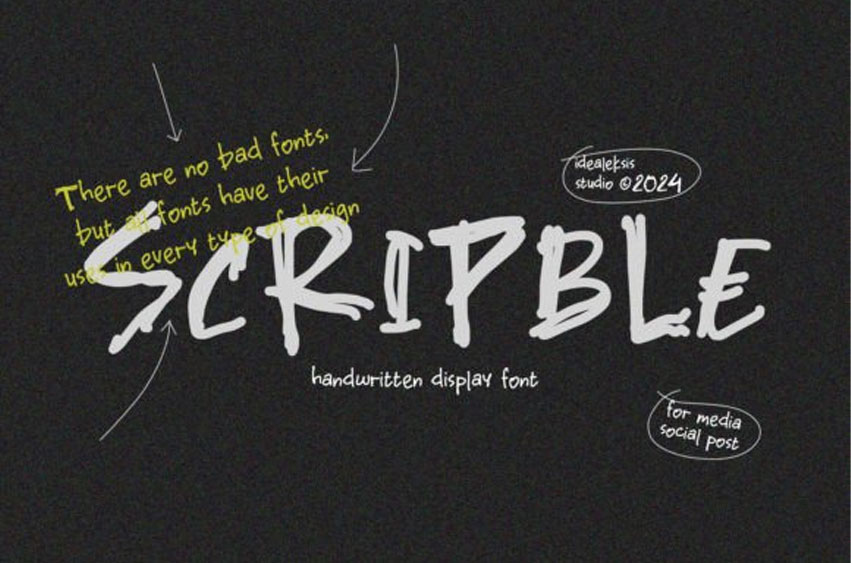
Scripble Font: Immerse yourself in the captivating charisma of Scripble Font – a pure, authentic handwritten typeface reflecting the simplicity of natural strokes. Channeling the elegance of bespoke hand-drawn artistry, it infuses a distinctive, personal aura into all design ventures.
The unique allure of Scripble Font creates an engaging, organic visual narrative, making it your ideal companion for enriching invitations, heartening greeting cards, and imaginative branding efforts. Cherish the grace of flawless imperfections with Scribble Font, a typeface that breathes life, authenticity, and character into your content.